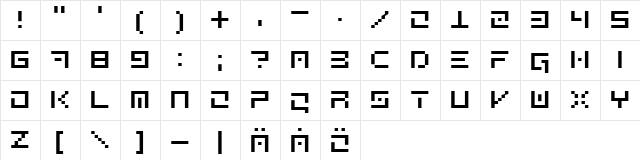
BitSpace Regular 5pts
Design Context for BitSpace Typeface
BitSpace offers clean, dependable letterforms without strong stylistic allegiance, making it a practical choice for designers who need flexibility.
Pro Tip: Pair BitSpace with a font of contrasting weight or personality to build a more expressive typographic hierarchy.